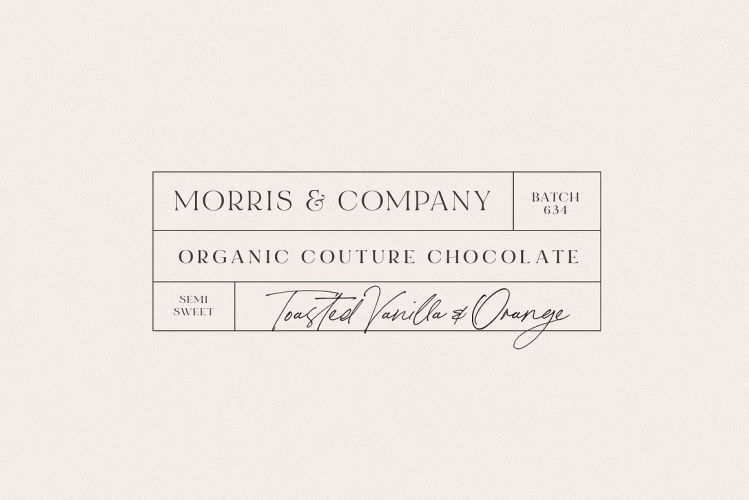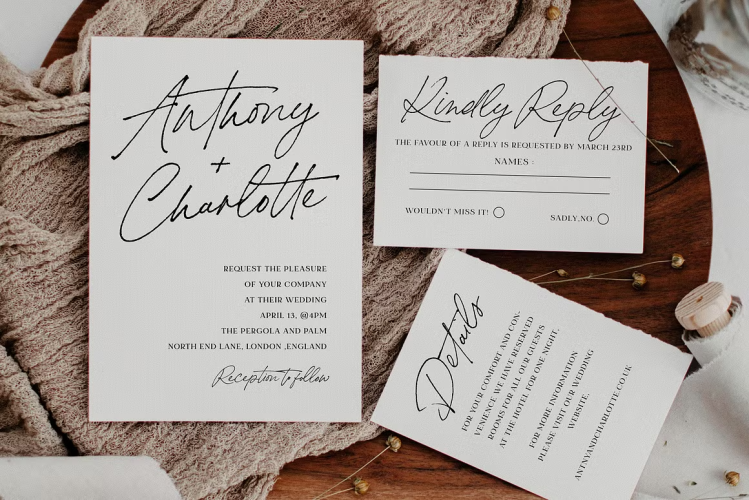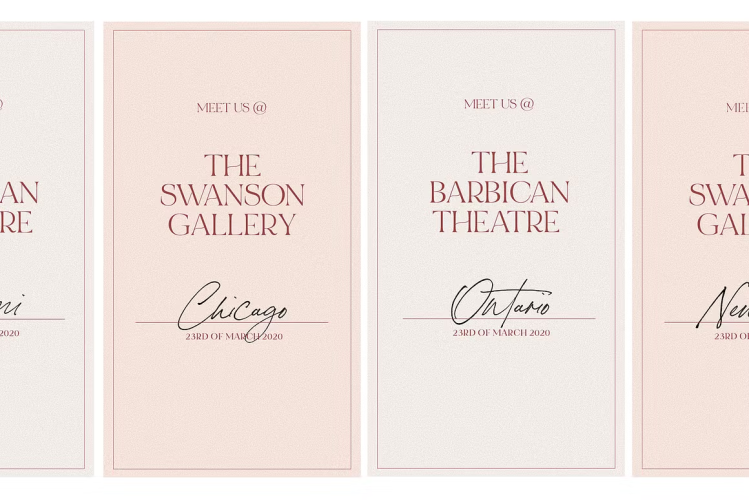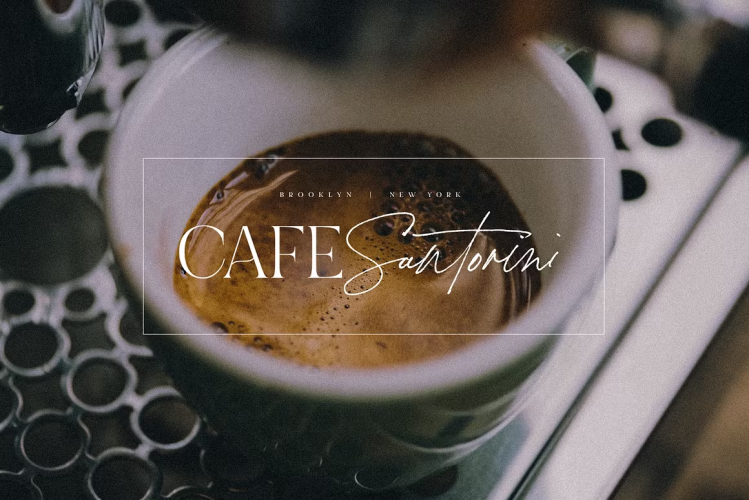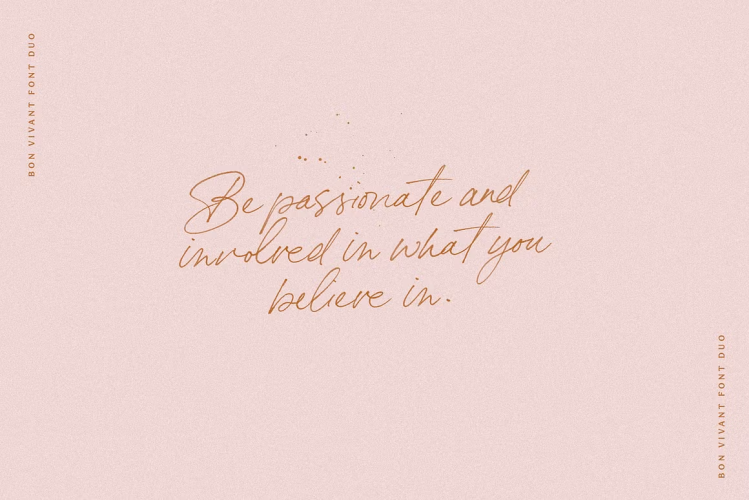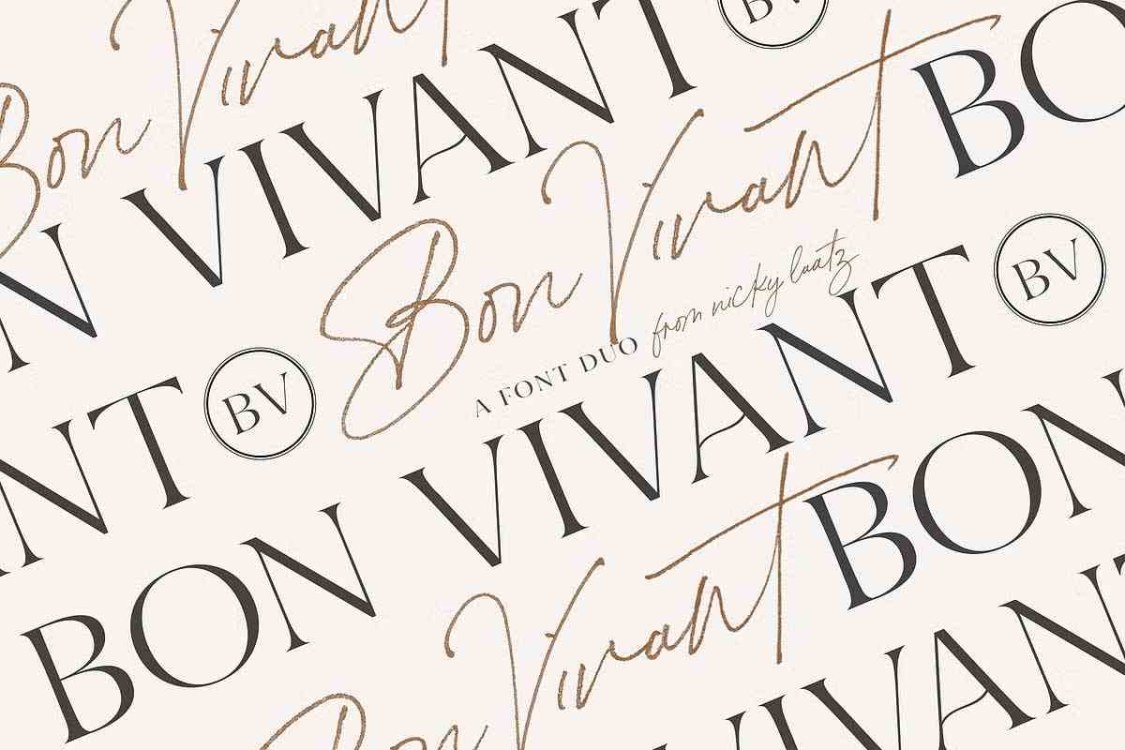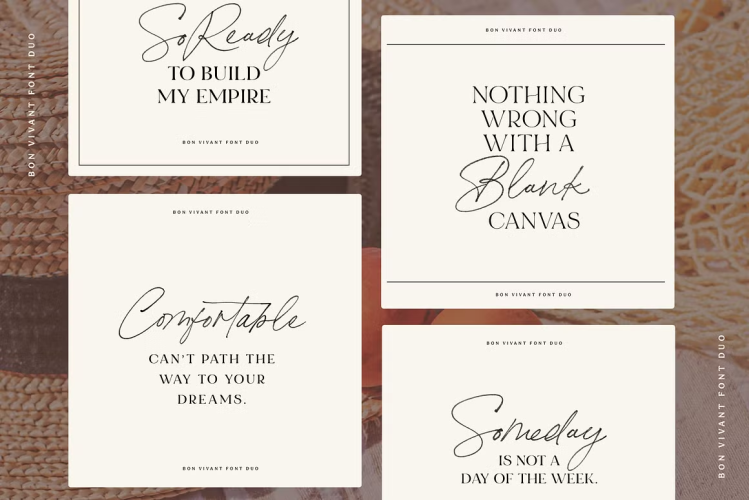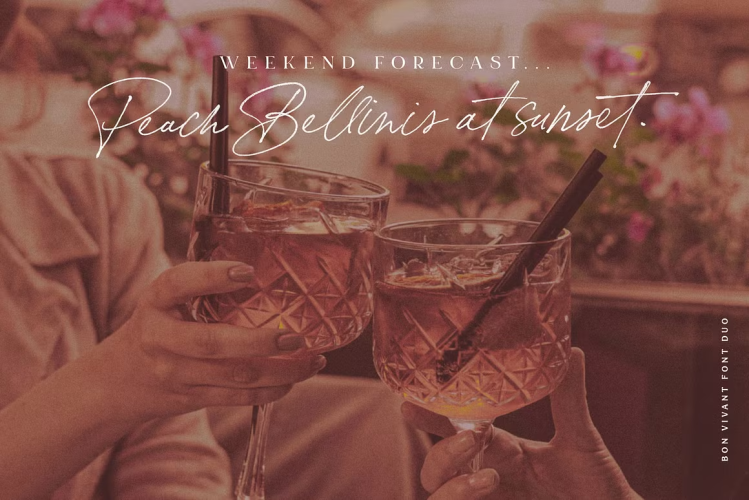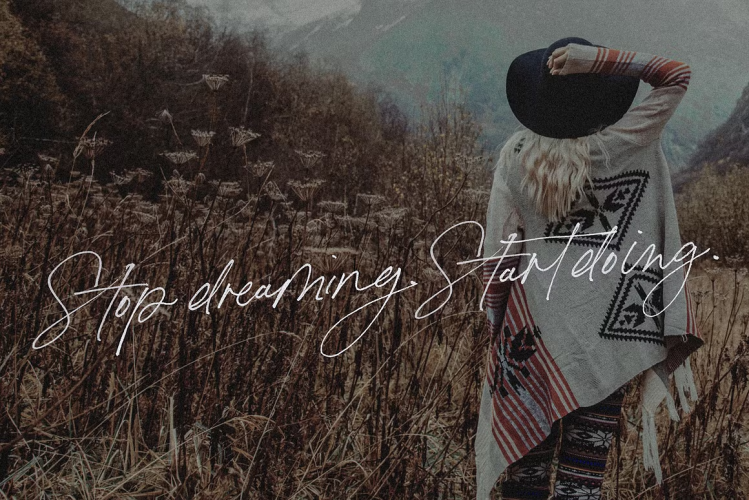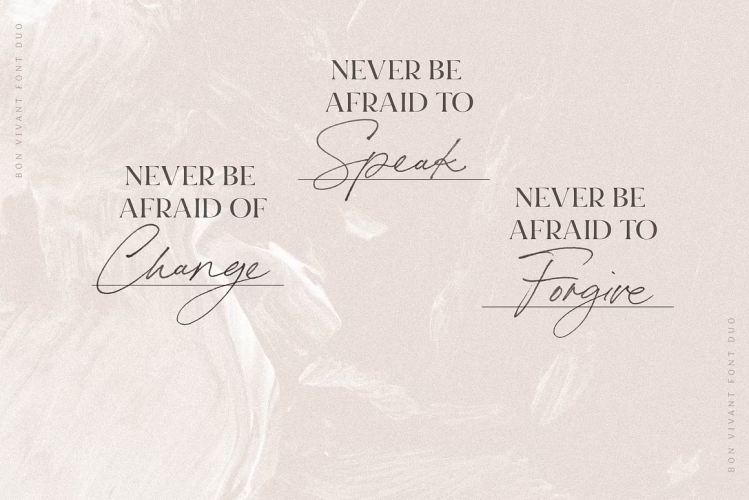
Bon Vivant Font
If you’ve got style and love all the luxuries in life, you’re Bon Vivant! Add a touch of luxury and style to your projects, too, with the new Bon Vivant Font Collection.…
If you’ve got style and love all the luxuries in life, you’re Bon Vivant! Add a touch of luxury and style to your projects, too, with the new Bon Vivant Font Collection. The pack includes free complimentary designer goodies to help you get your creative juices flowing! Flip through the previews above to get creative inspiration and see what you can make.
Where Bon Vivant Font works best
Bon Vivant Font brings a personal, handwritten warmth to invitations, menus and place cards.
Craft brands — coffee, cosmetics, bakery — use scripts like Bon Vivant Font for signature-style logos and labels.
Pair Bon Vivant Font with a plain sans for quotes, stories and Pinterest pins that feel handmade.
What is Bon Vivant Font good for?
Bon Vivant Font is a Script And Handwritten typeface tagged Creative, Free, Script, Script And Handwritten. It works well for headlines, logos, posters, social media graphics and branding projects that need a distinctive script and handwritten look.